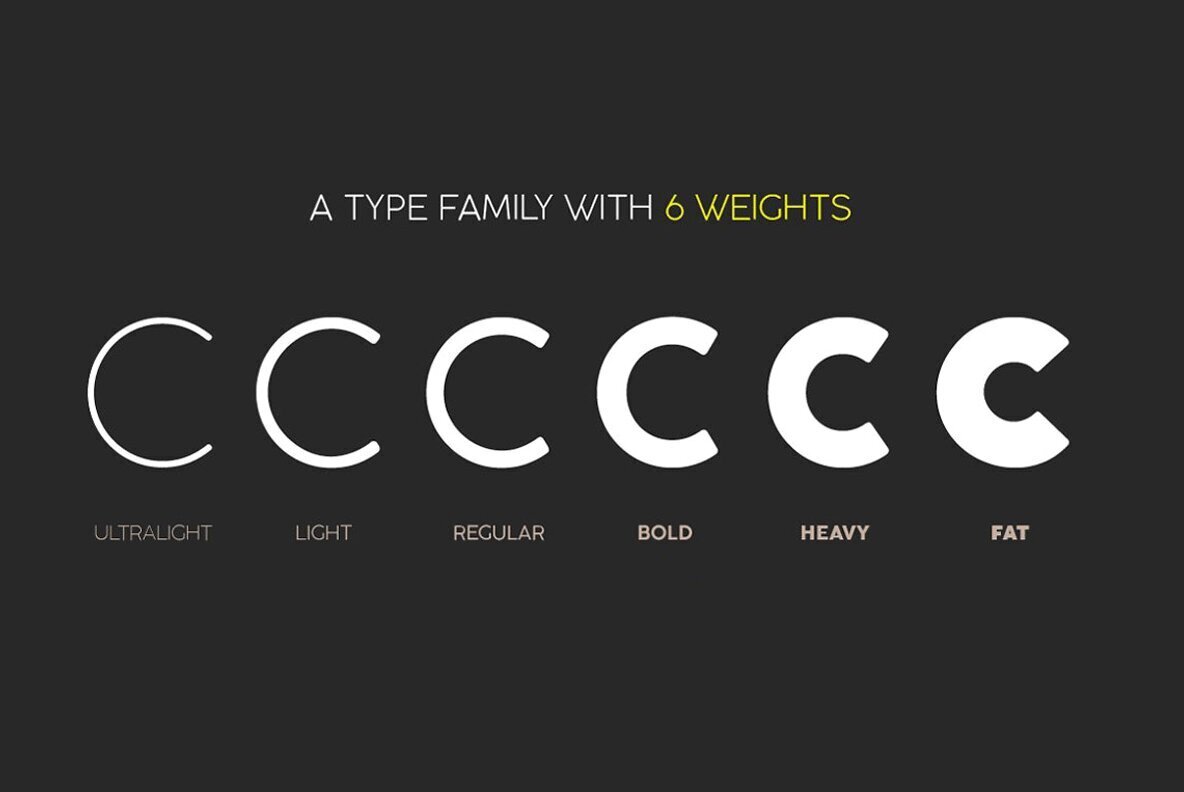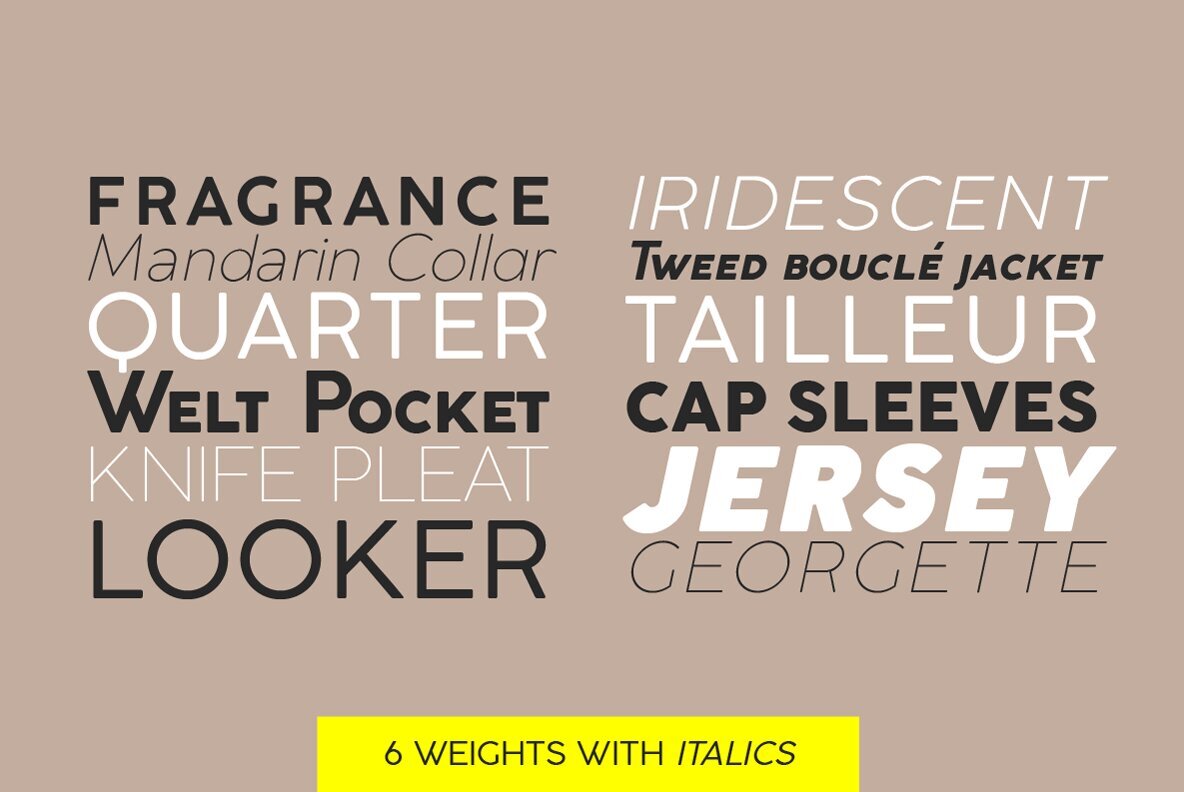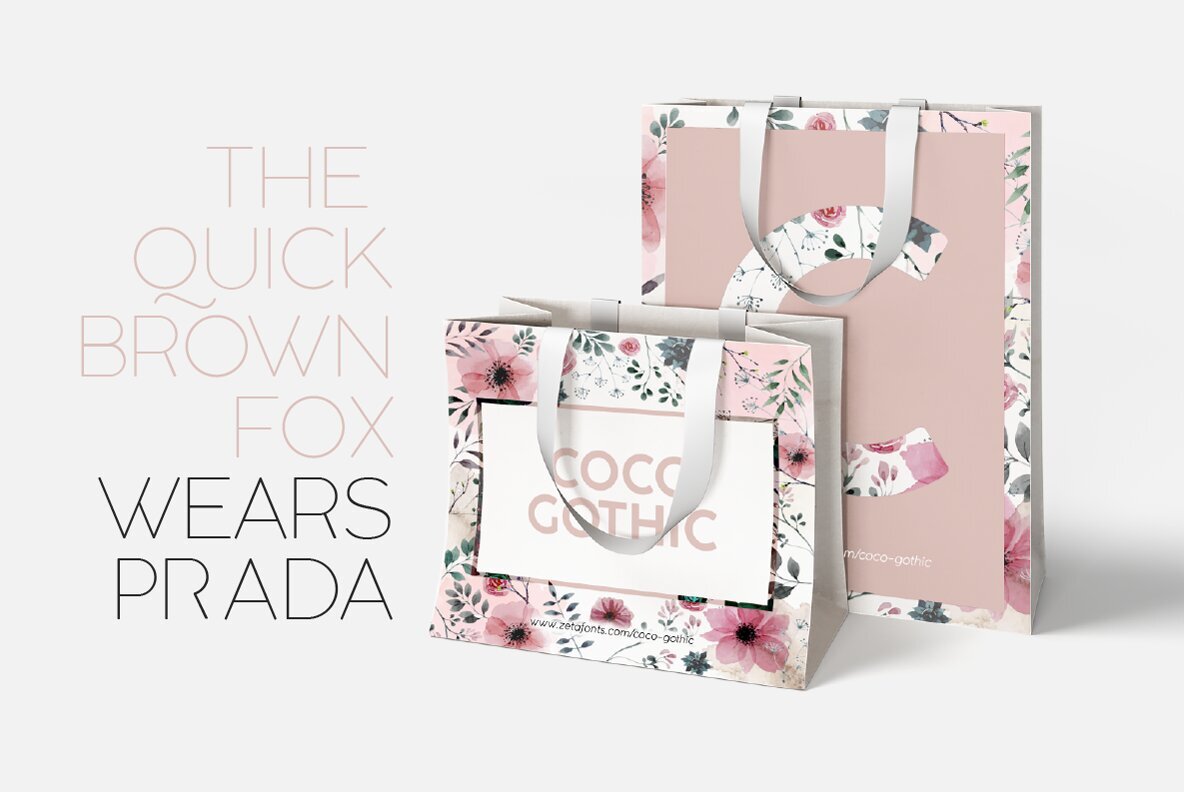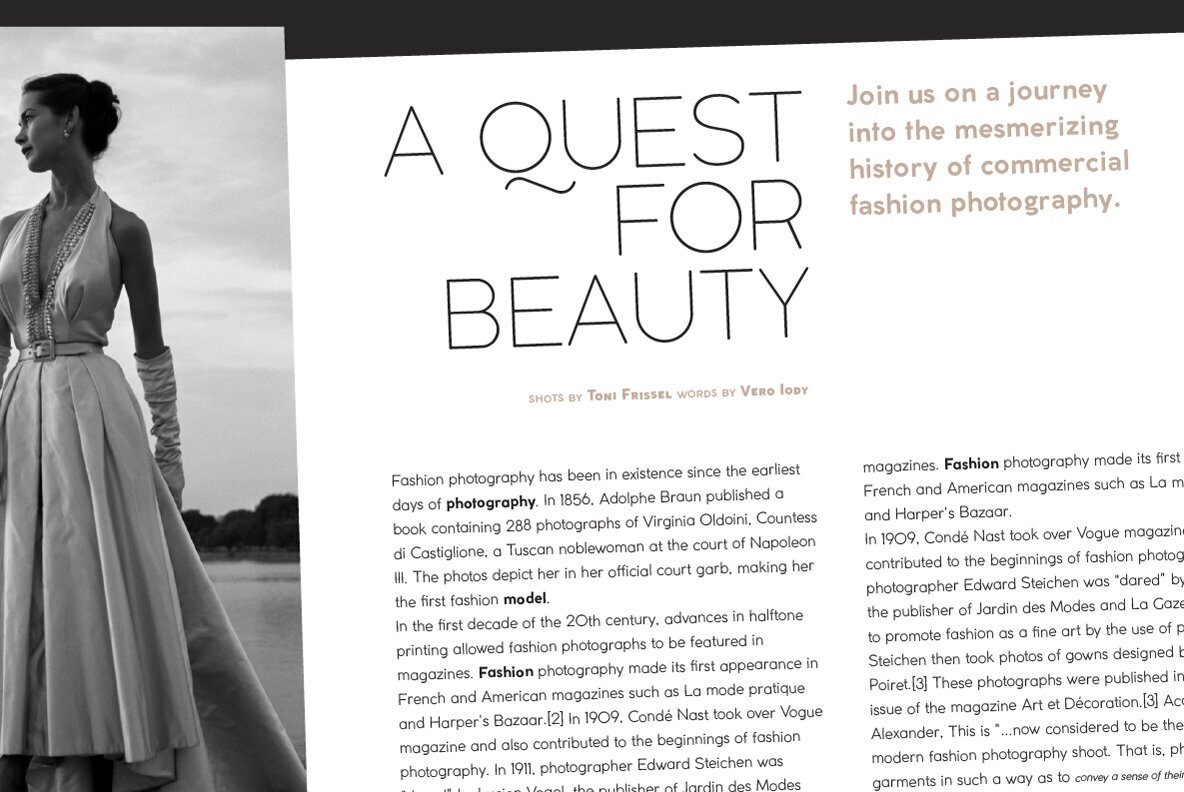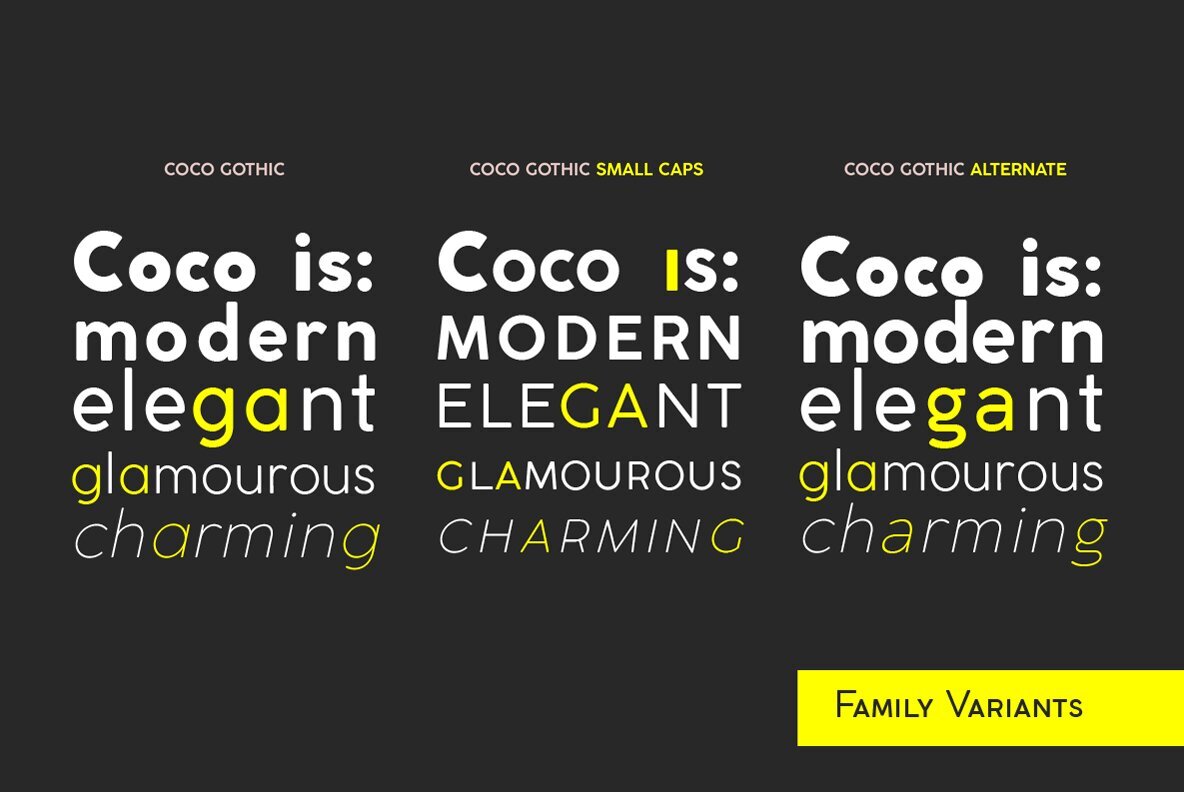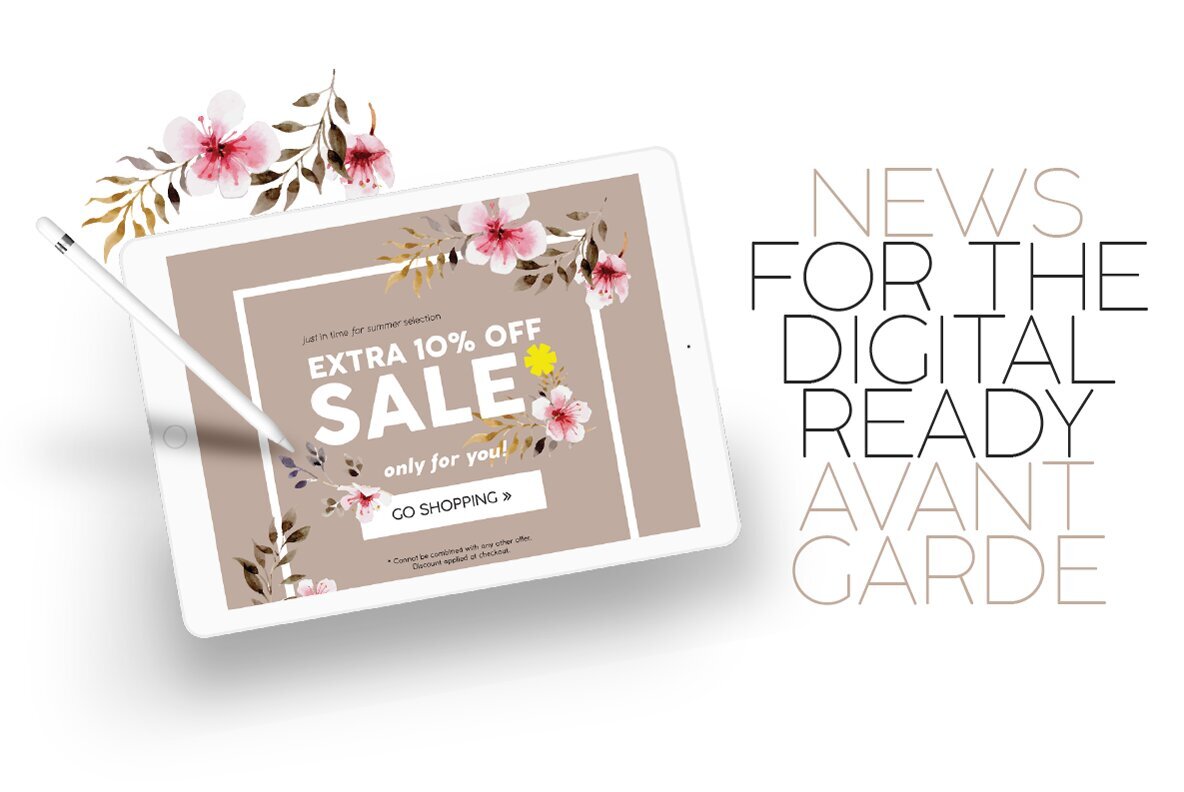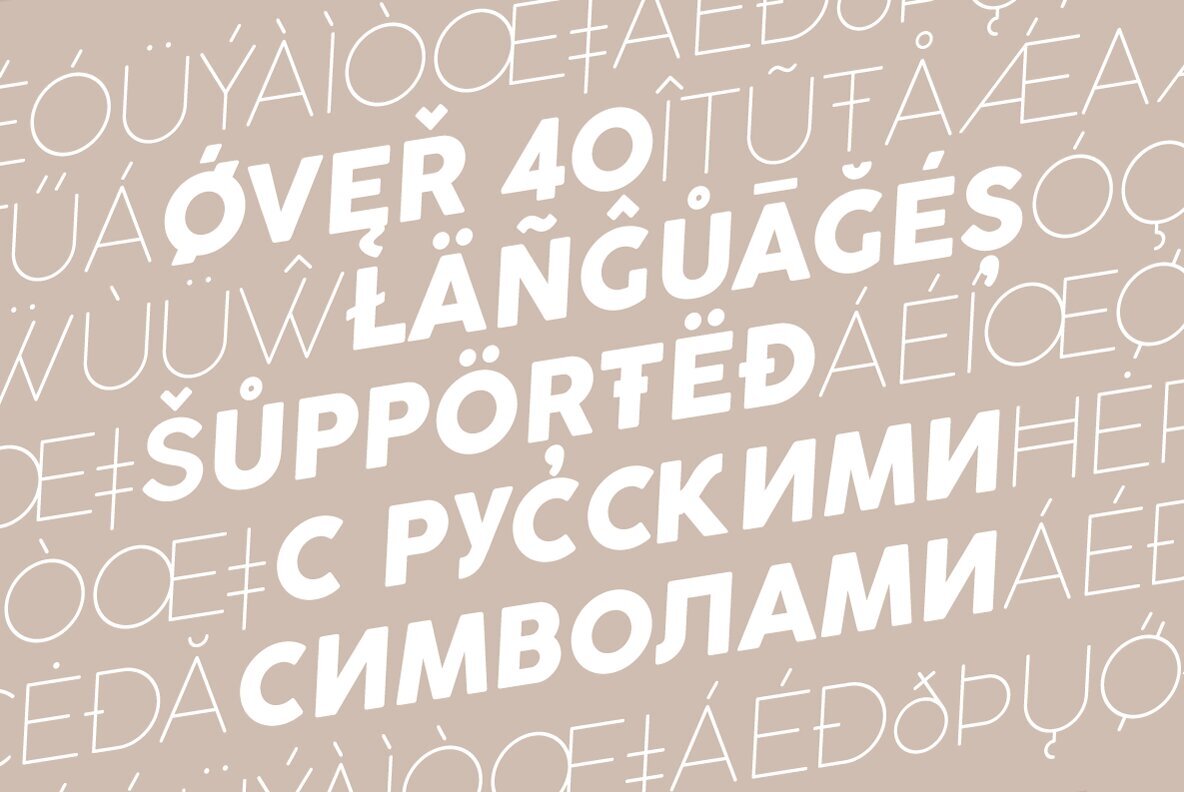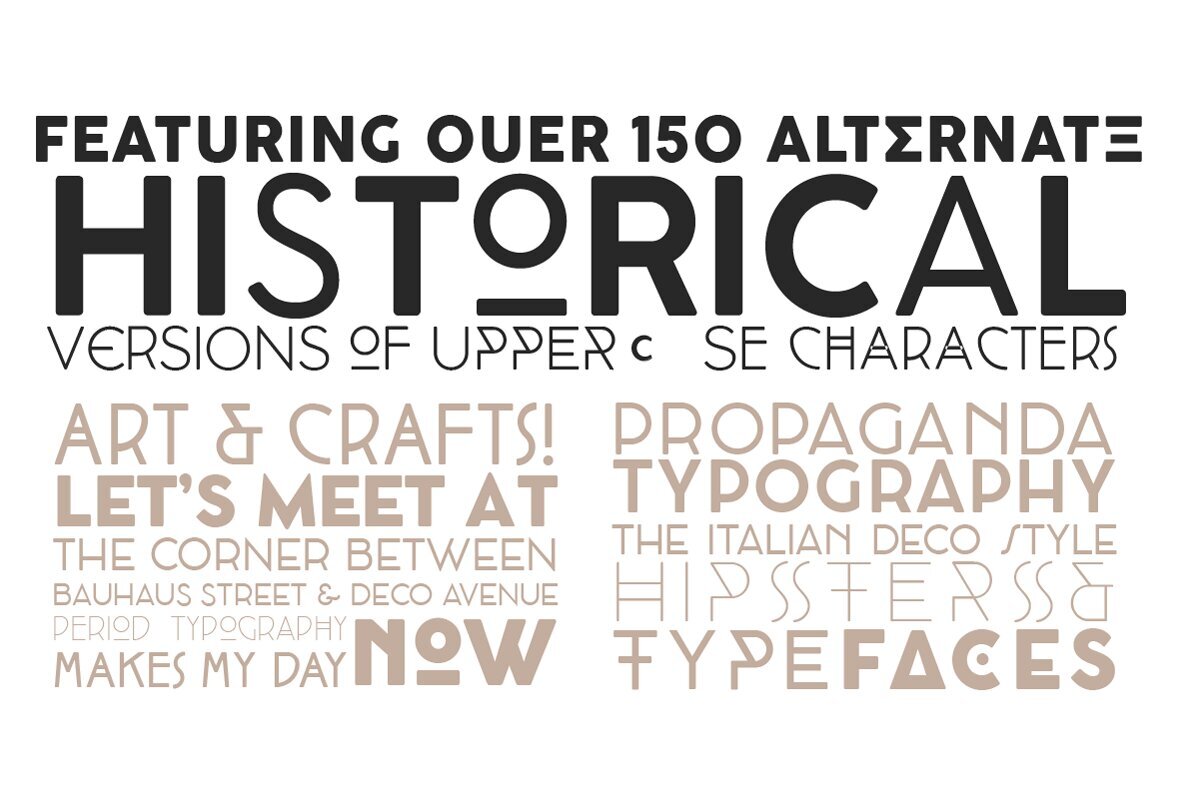
Coco Gothic Font
Coco Gothic is a contemporary take on the retro geometric sans serif style of early 19th century typefaces like Futura and Avantgarde. It comes in six weights with matching italics and features an extended character set with open type support for small caps, ligatures, alternates, European languages, Greek and Cyrillic alphabets for a total of 36 fonts ready to solve your design problems.
Equipped with a rich array of historical variants (only for uppercase letters), Coco Gothic is also an encyclopedia of styles from the last century, ready to transform itself and adapt to the mood of your text.